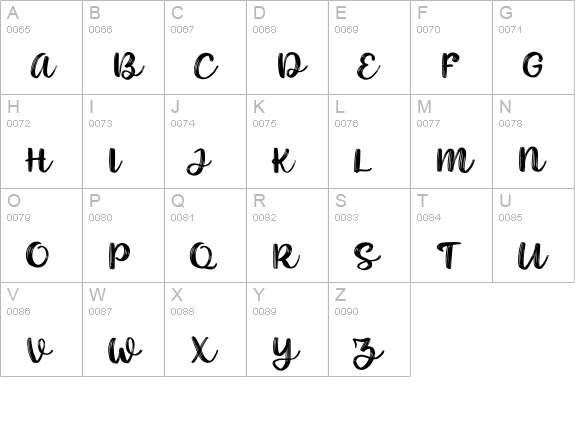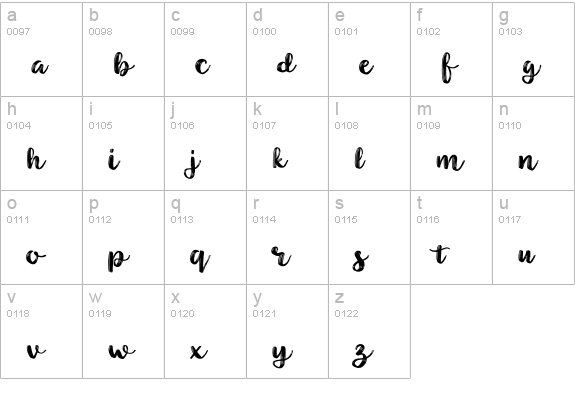
Noyram Font Details
Noyram is a demo font in the Script > Brush category, designed by patria_typestudio. It has been downloaded 328 times and is available for Windows, Mac and Linux.
Introducing Noyram font, a versatile and modern typeface that effortlessly combines elegance with functionality. With its clean lines and subtle curves, Noyram is perfect for a wide range of design projects, from branding to editorial design.
This font is not only stylish and eye-catching but also incredibly easy to read, making it a great choice for both digital and print applications. The sleek and sophisticated design of Noyram will elevate any project and give it a touch of class.